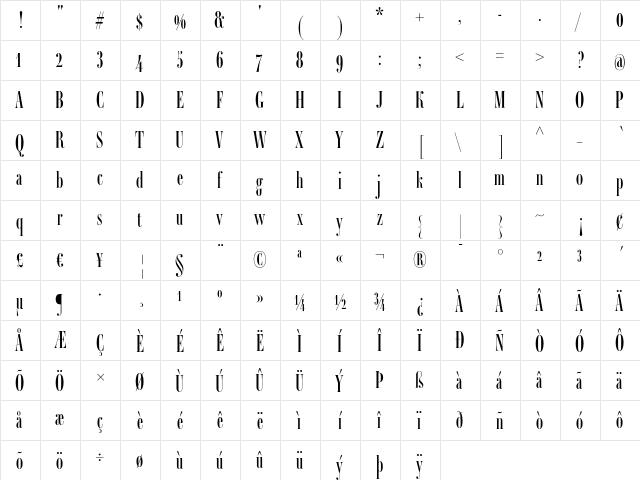
Ambroise Francois Regular
Design Context for Ambroise Francois Typeface
Ambroise Francois offers clean, dependable letterforms without strong stylistic allegiance, making it a practical choice for designers who need flexibility.